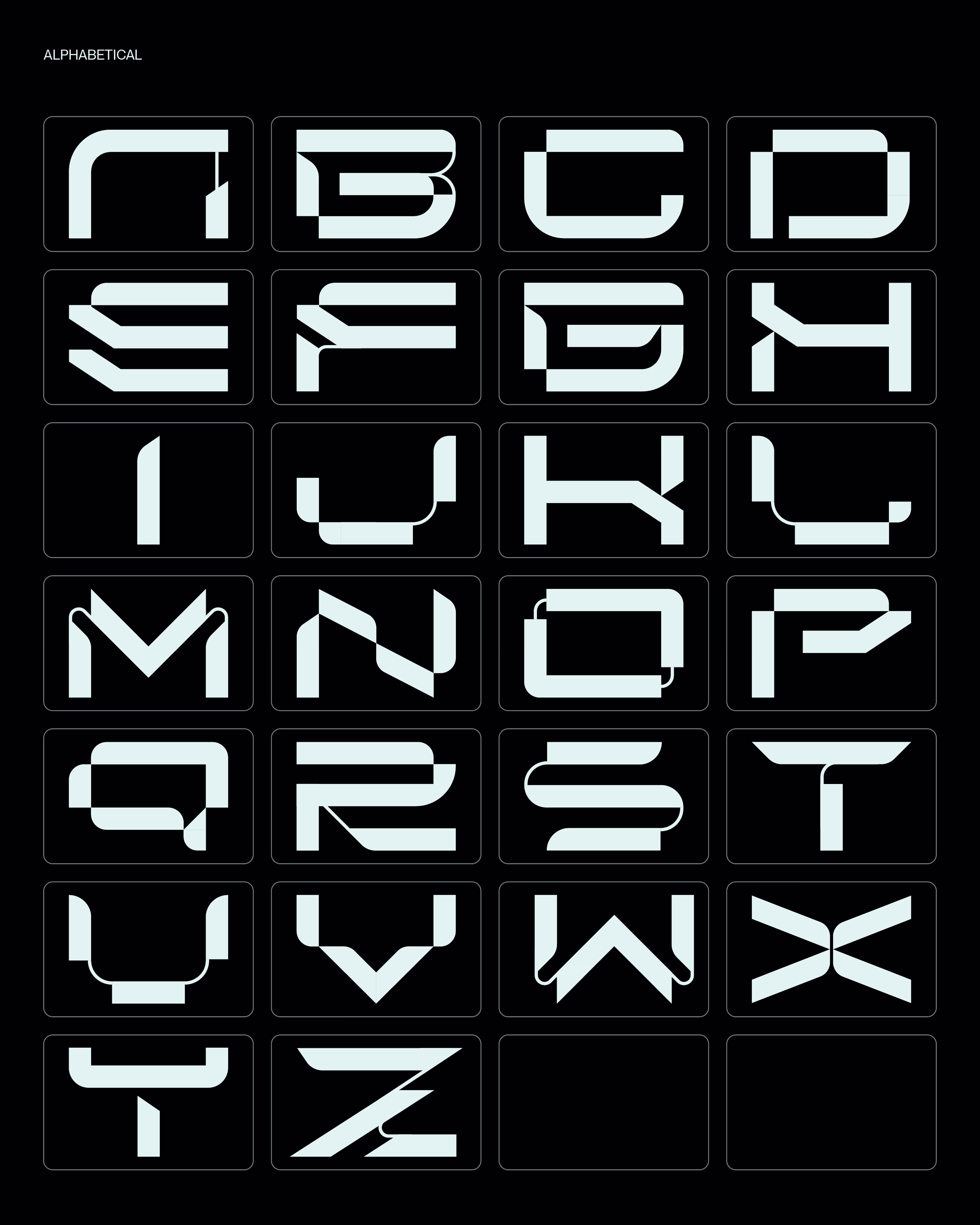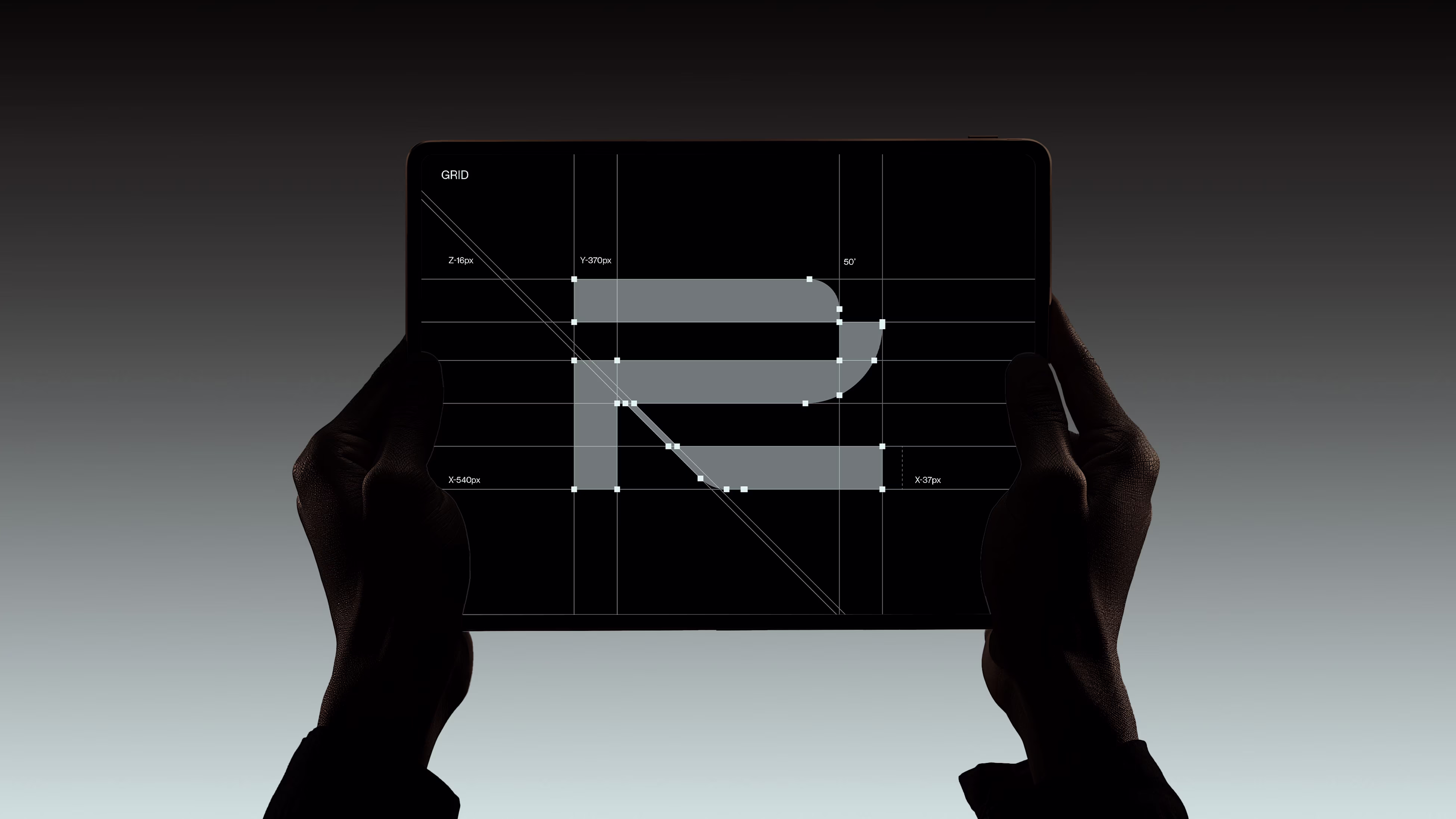
Arcane is my first ever typeface designed from scratch.
Arcane represents a custom-designed typeface, a futuristic, monospaced font built entirely from geometric shapes on a modular grid. It features both alphabetic and numeric letterforms with a balanced mix of bold and thin elements that create a striking, dynamic aesthetic. With consistent width and height across all characters, the font maintains tight spacing and precise kerning, evoking a high-tech, sci-fi-inspired visual language.